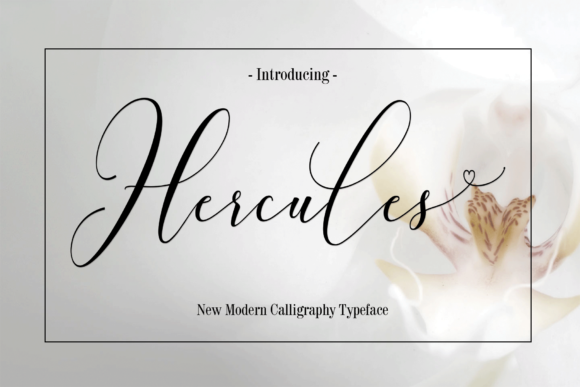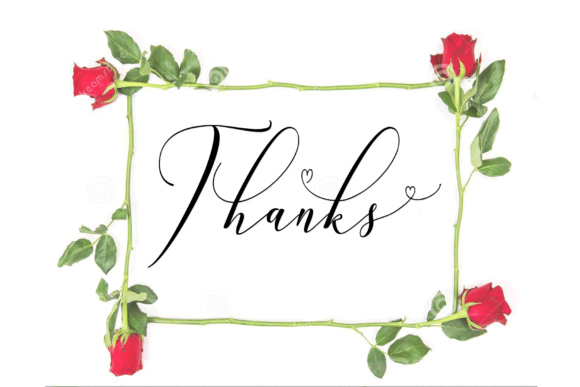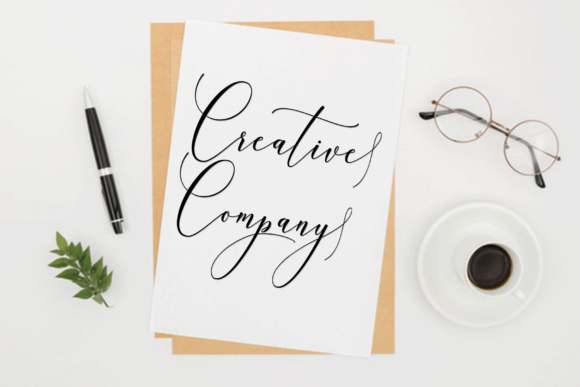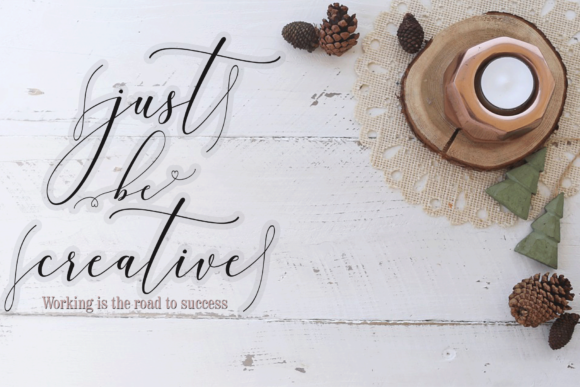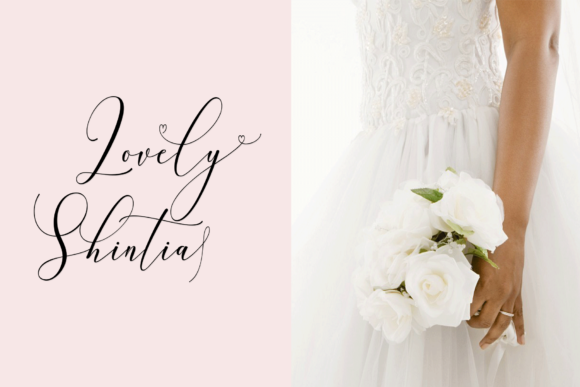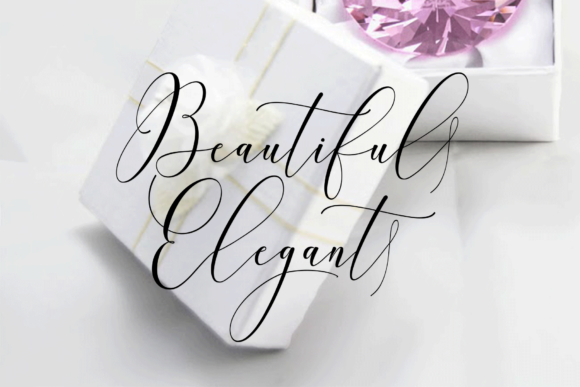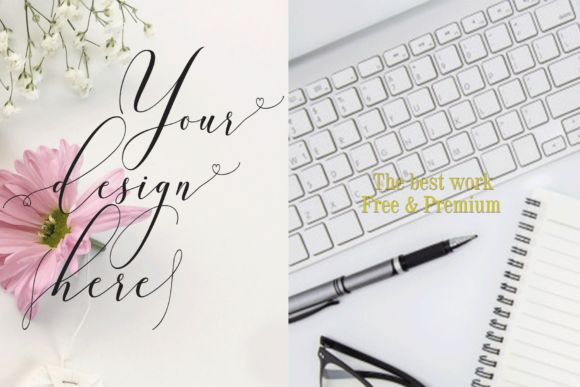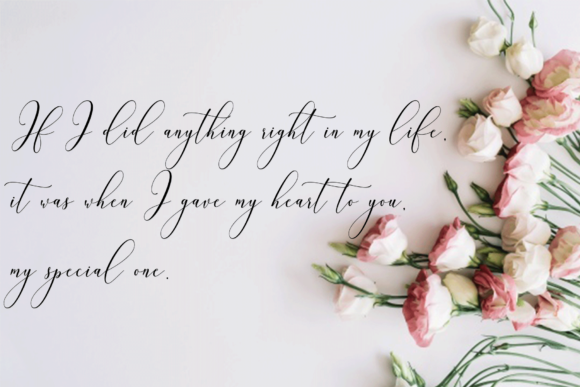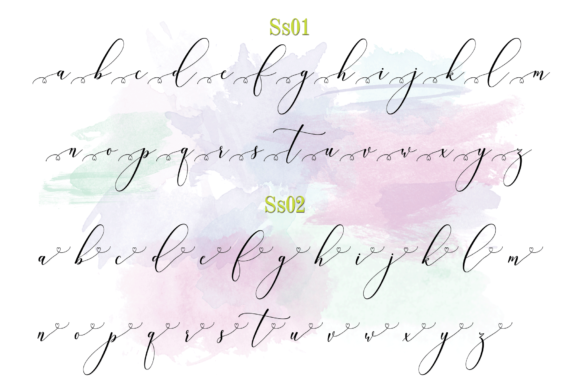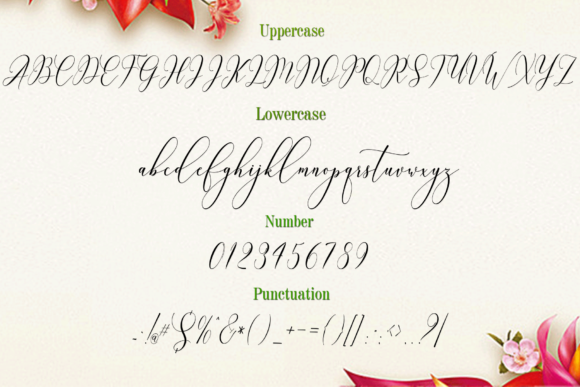
Hercules Font
About Hercules Font
Hercules is a fun and cool handwritten font with a bold twist and stunning PUA-encoded swashes. Get inspired by its unique aesthetic!